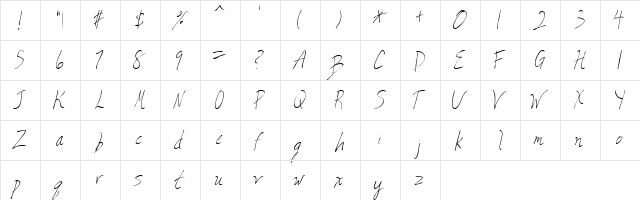
Valia Truelight Regular
Design Context for Valia Truelight Typeface
Valia Truelight is a composed and adaptable typeface that performs quietly and consistently across a wide range of design contexts. Its slender proportions lend an understated elegance to any composition.